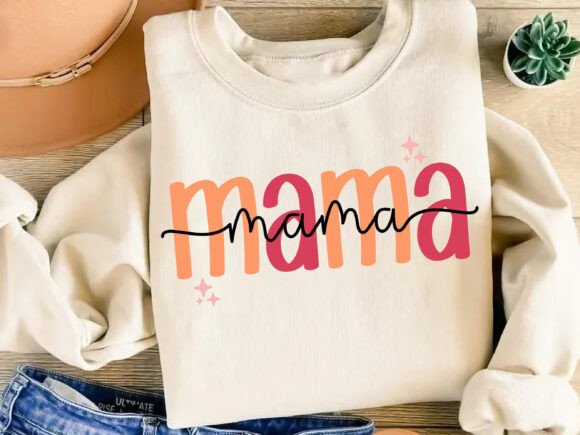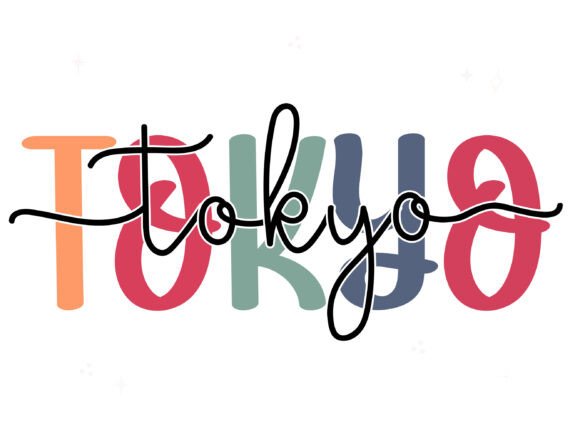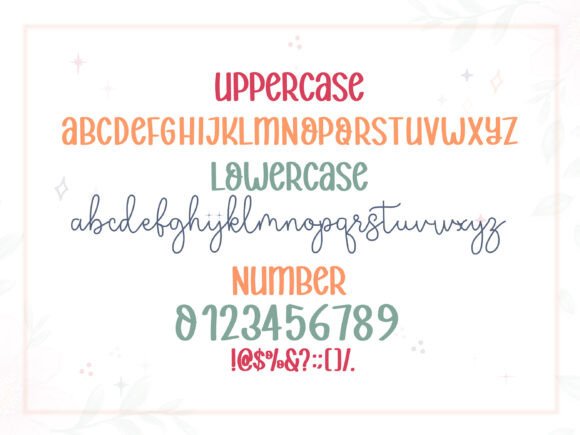
Vintage Rainbow Duo is a fun and friendly handwritten with script font. This gentle font will look gorgeous on a variety of design ideas. From greeting cards to headlines, this font will guarantee a romantic touch to each of your creations and adding a chic and cheery touch to your crafts!
Vintage Rainbow Font